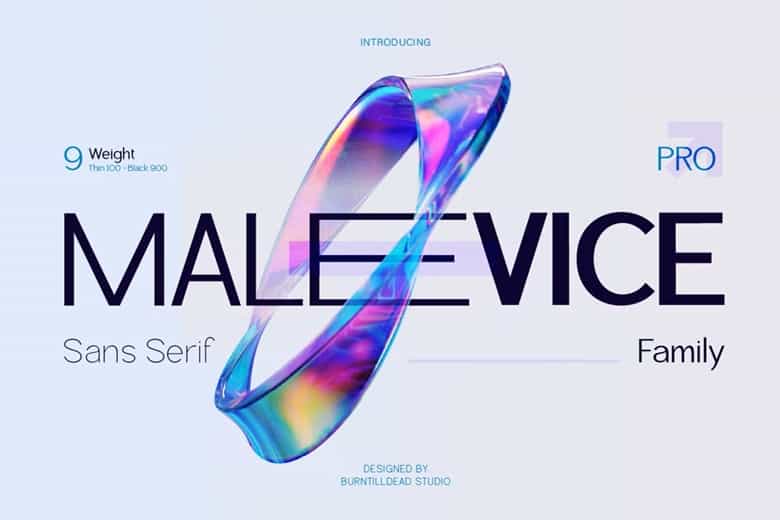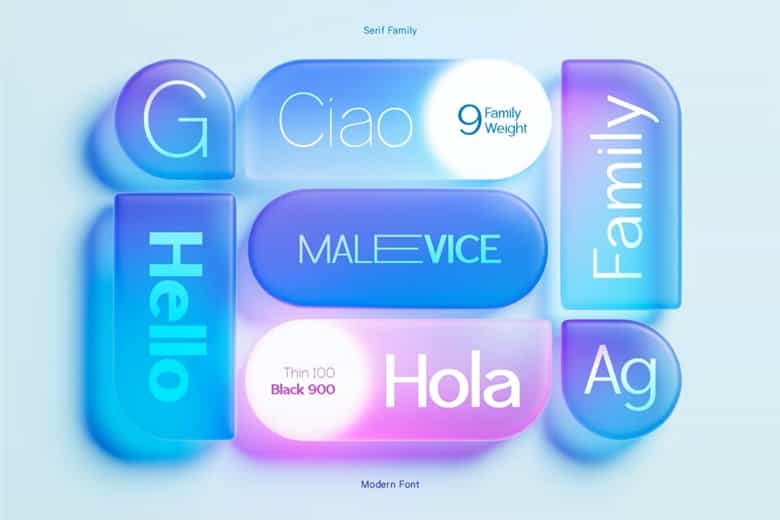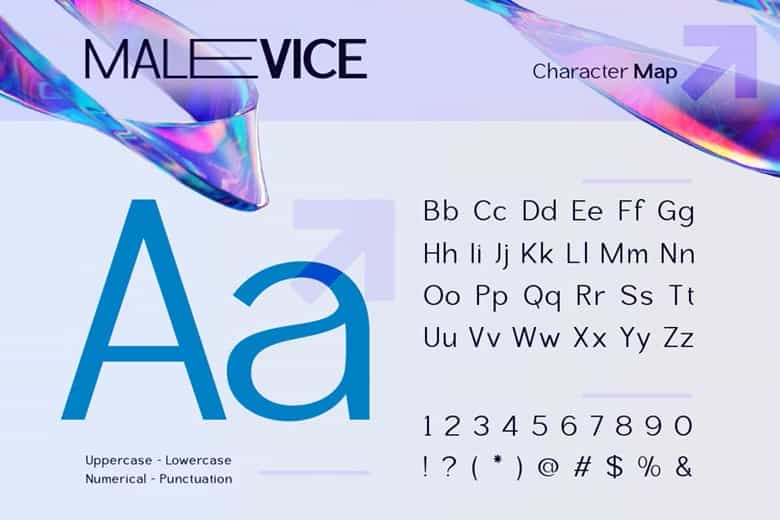
Malevice Pro is a new sans serif font family that perfectly blends modern style and flexibility. This font has a clean, balanced, and professional look it and it will go great in all kinds of design projects. With 9 weights ranging from Thin through to Black,